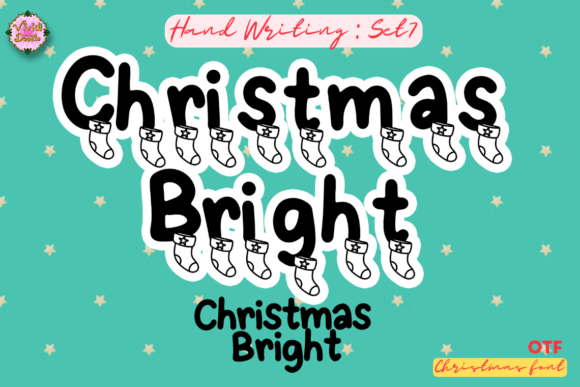
Christmas Bright 1 Font: A Festive and Versatile Hand-Lettered Font for the Holiday Season
As the holiday season approaches, designers and crafters are on the lookout for unique and festive fonts to add a touch of merriment to their creations. If you’re looking for a font that embodies the warm joy and festive cheer of Christmas, look no further than Christmas Bright 1 Font. This newly crafted, hand-lettered font is specially designed to bring the magic of the holiday season to your projects, and its versatility makes it perfect for a wide range of applications.
A Unique and Enchanting Font
Christmas Bright 1 Font is a one-of-a-kind, hand-lettered font that radiates festive cheer. Its unique design is thoughtfully crafted to capture the essence of the holiday season, with intricate details and a playful flair. The font’s enchanting appearance is sure to add a touch of magic to any project, from holiday cards and invitations to social media graphics and website headers.
What sets Christmas Bright 1 Font apart is its adaptability. While it’s specially created for the holiday season, its versatility makes it suitable for a wide range of projects beyond Christmas. Whether you’re designing for a holiday market, a winter-themed event, or simply looking for a font that adds a touch of whimsy to your creations, Christmas Bright 1 Font is the perfect choice.
Key Features of Christmas Bright 1 Font
- Hand-lettered design: Each letter is carefully crafted to create a unique and enchanting font that’s full of personality.
- Festive and playful: Christmas Bright 1 Font is designed to capture the spirit of the holiday season, with a playful and festive flair.
- Versatile: While it’s specially created for the holiday season, the font’s versatility makes it suitable for a wide range of projects.
- Exclusive: Christmas Bright 1 Font is a one-of-a-kind font that’s sure to make your creations stand out.
Perfect for a Wide Range of Projects
Christmas Bright 1 Font is perfect for a wide range of projects, including:
- Holiday cards and invitations: Add a touch of festive cheer to your holiday cards and invitations with this enchanting font.
- Social media graphics: Create eye-catching social media graphics that capture the spirit of the holiday season.
- Website headers: Add a touch of magic to your website headers with this unique and festive font.
- Winter-themed events: Create promotional materials for winter-themed events, such as ski resorts, holiday markets, and festive festivals.
- Branding and packaging: Use Christmas Bright 1 Font to create unique and eye-catching branding and packaging for your holiday products.
Here are some tips for getting the most out of Christmas Bright 1 Font:
- Experiment with different colors: Try pairing the font with different colors to create unique and eye-catching combinations.
- Play with font sizes: Experiment with different font sizes to create visual interest and hierarchy.
- Add festive graphics: Pair the font with festive graphics, such as holly or snowflakes, to create a cohesive and festive look.
Christmas Bright 1 Font is a unique and enchanting hand-lettered font that’s perfect for adding a touch of festive cheer to your creations. Its versatility makes it suitable for a wide range of projects, from holiday cards and invitations to social media graphics and website headers. With its easy-to-use design and exclusive look, Christmas Bright 1 Font is sure to become a favorite in your design arsenal.